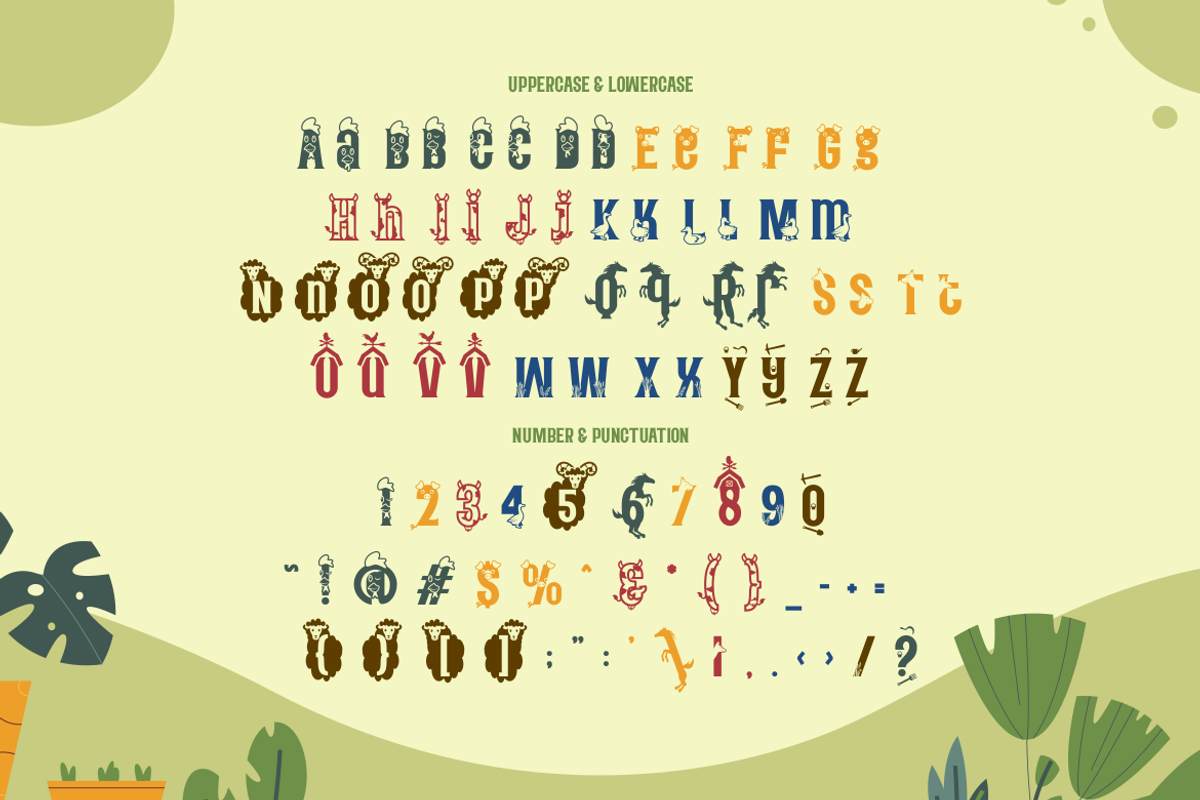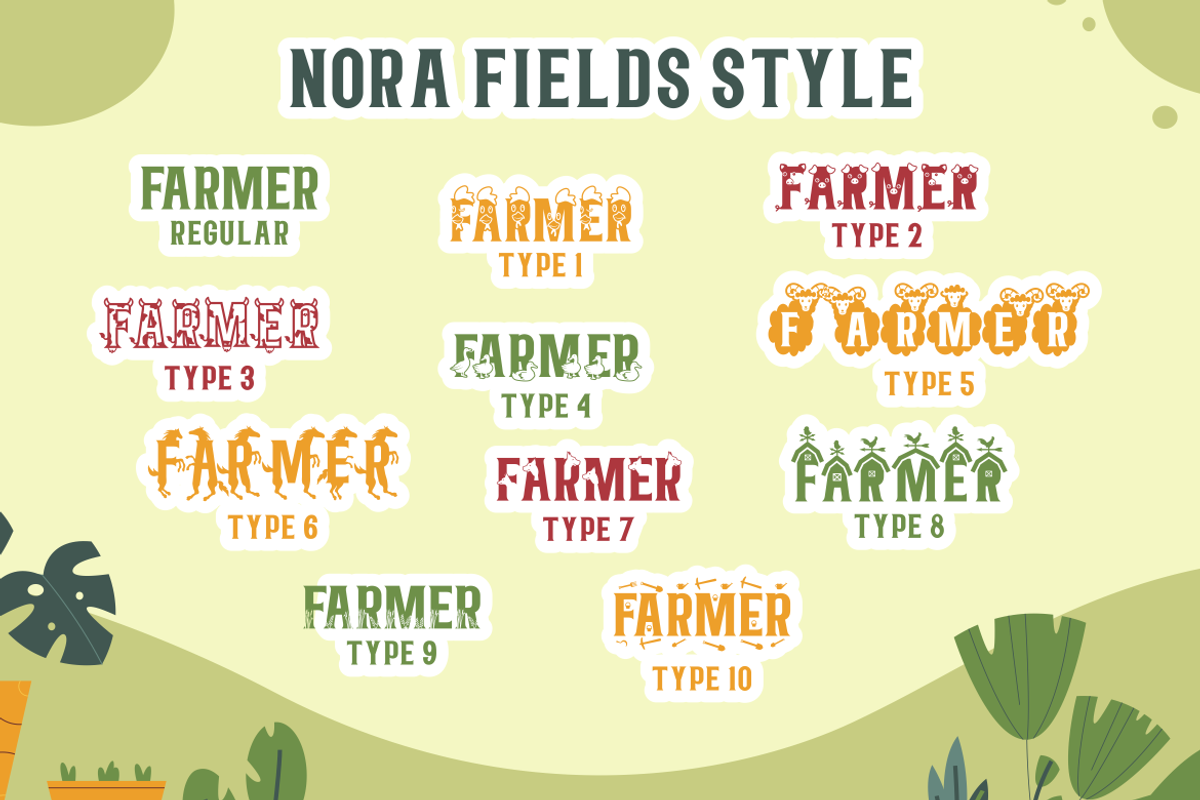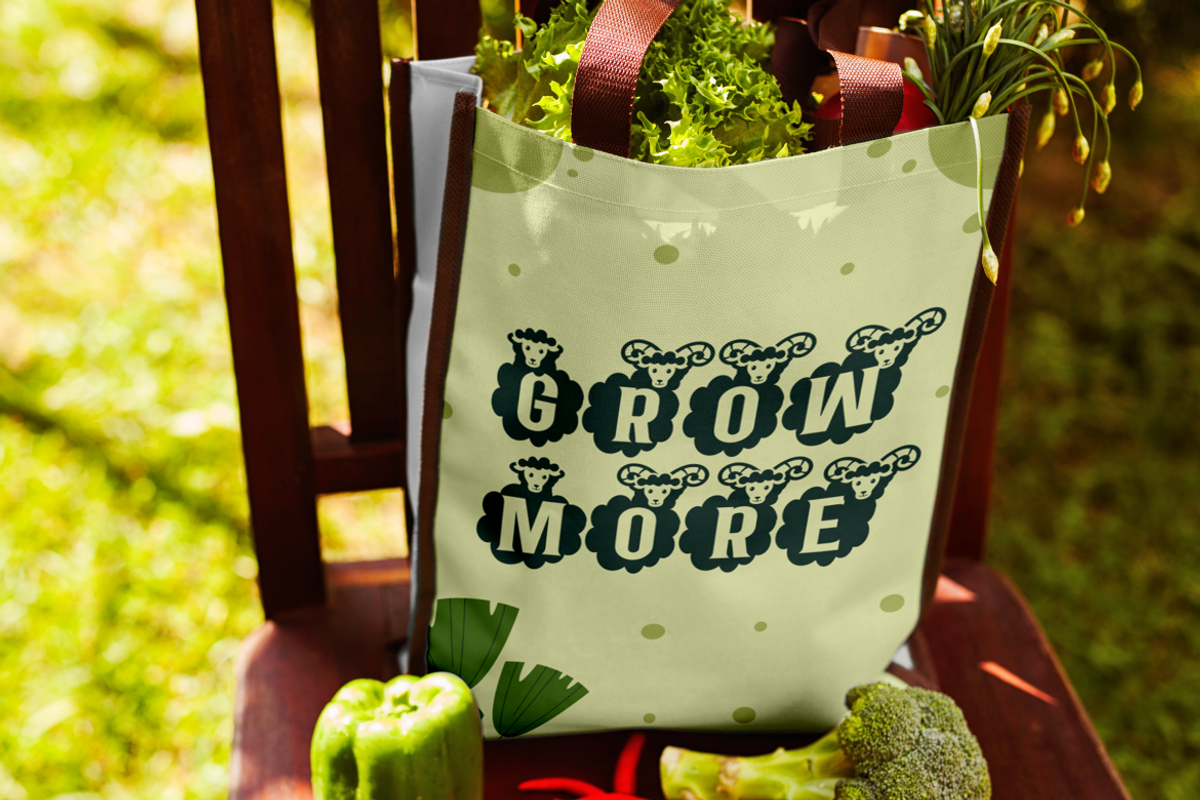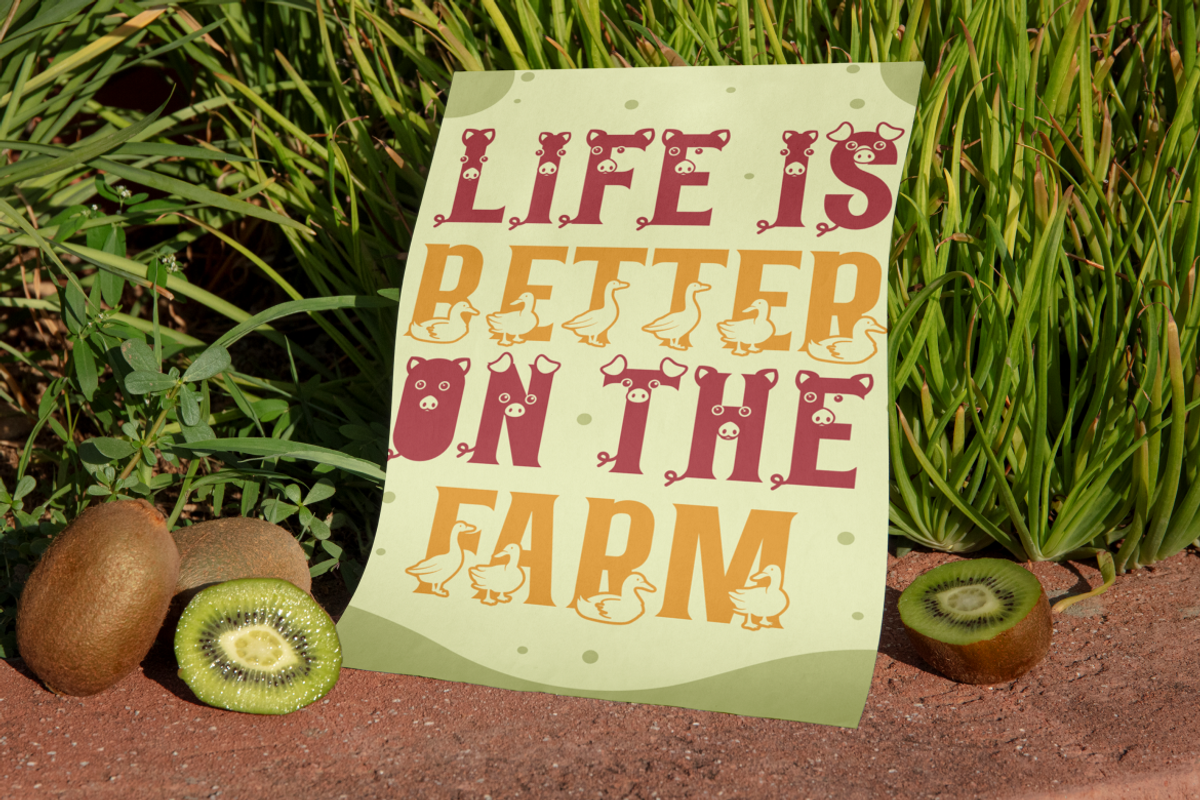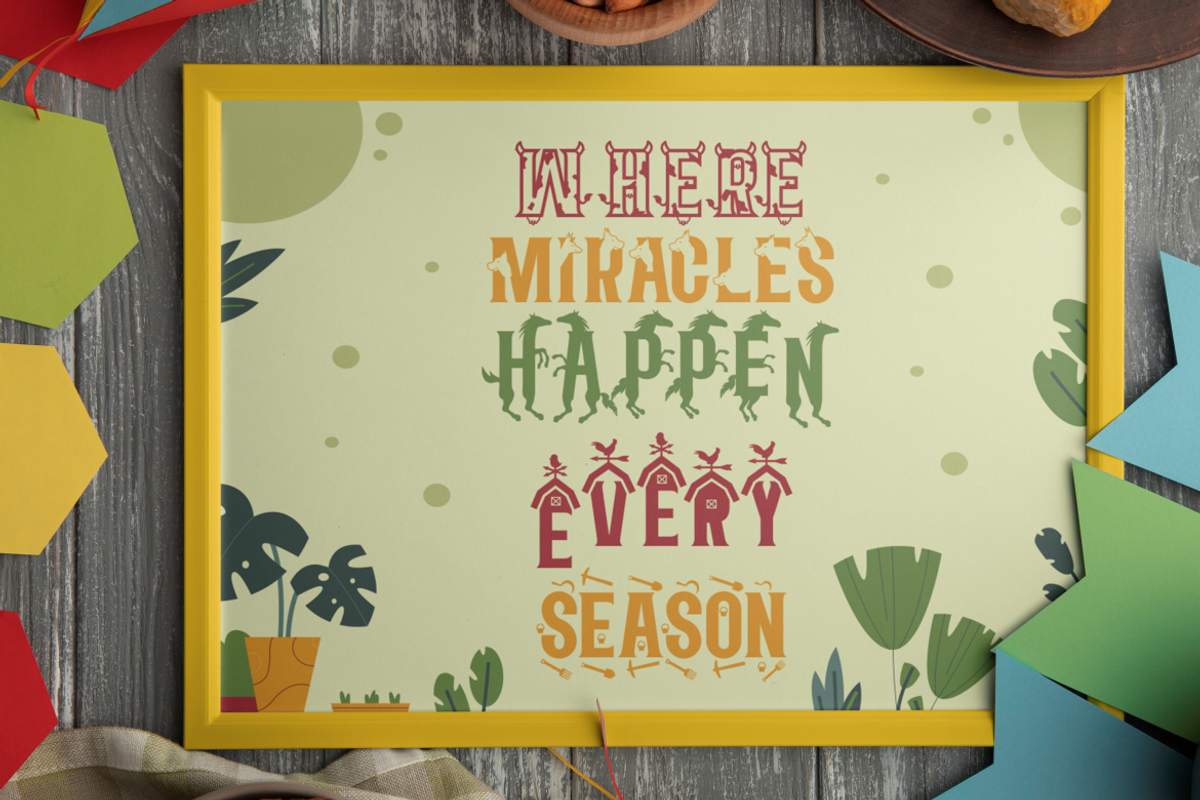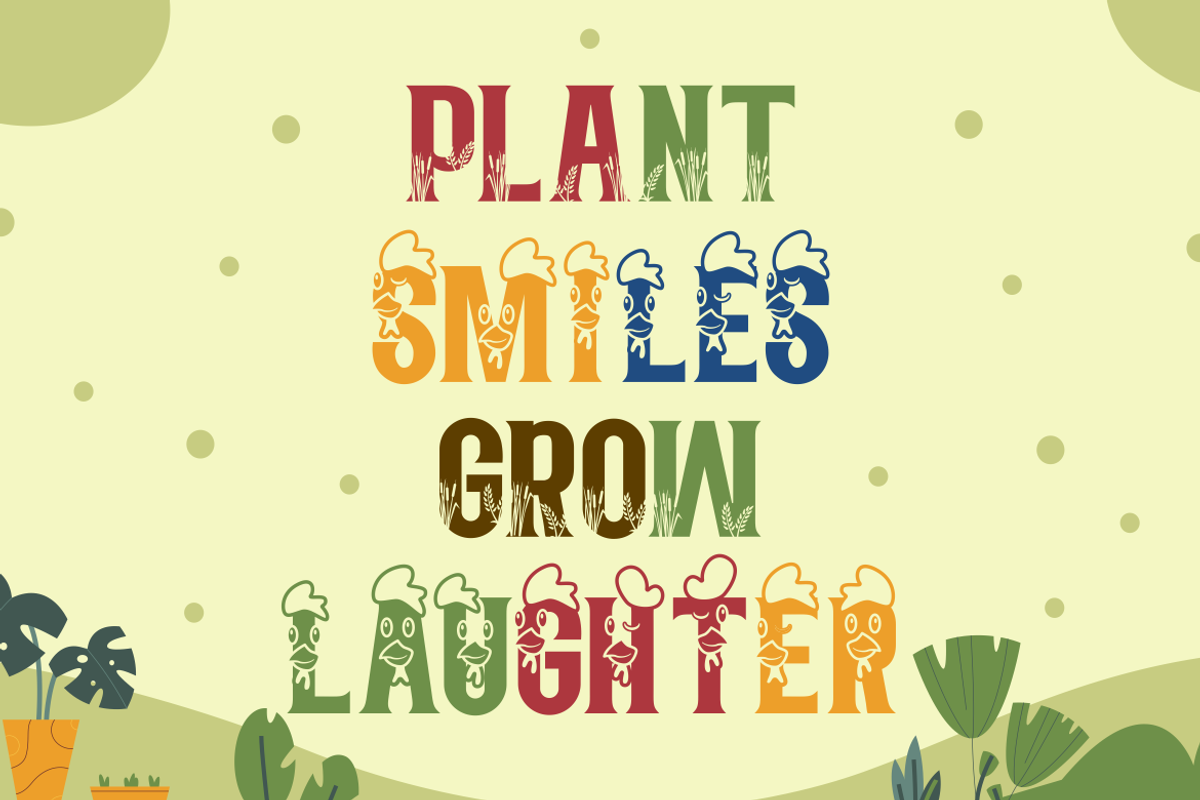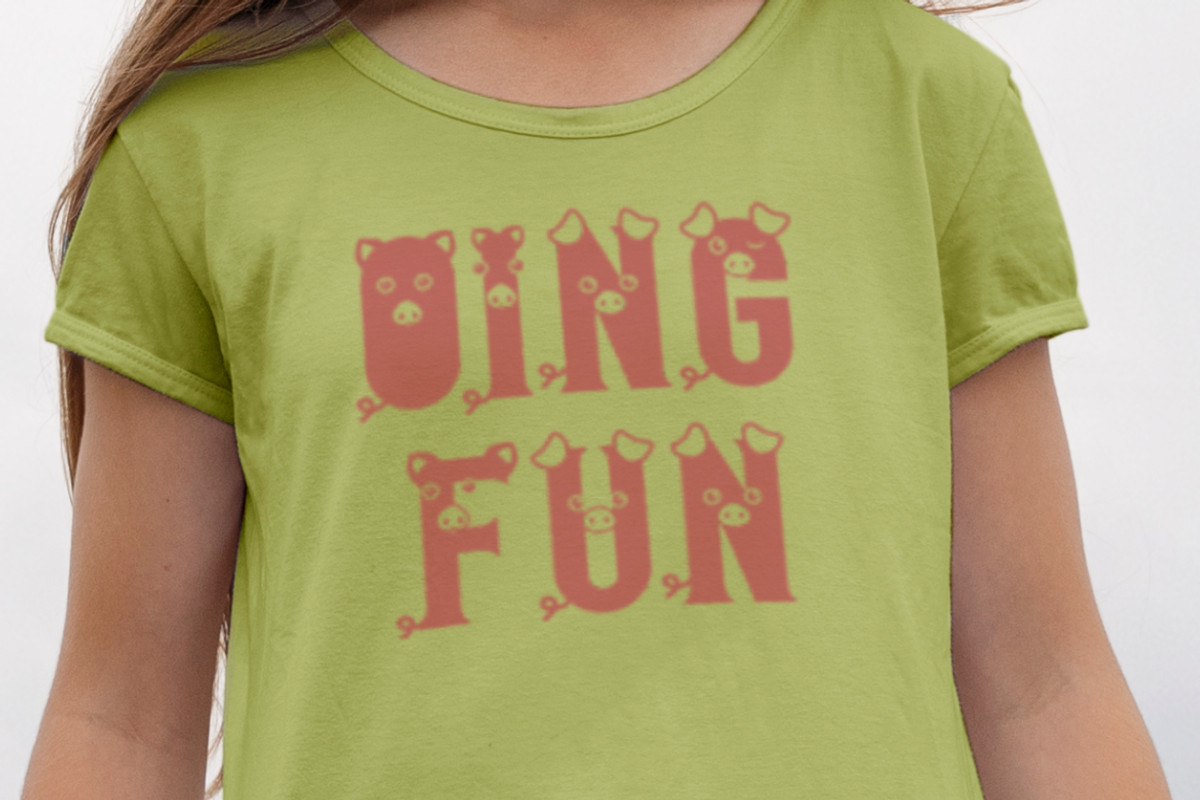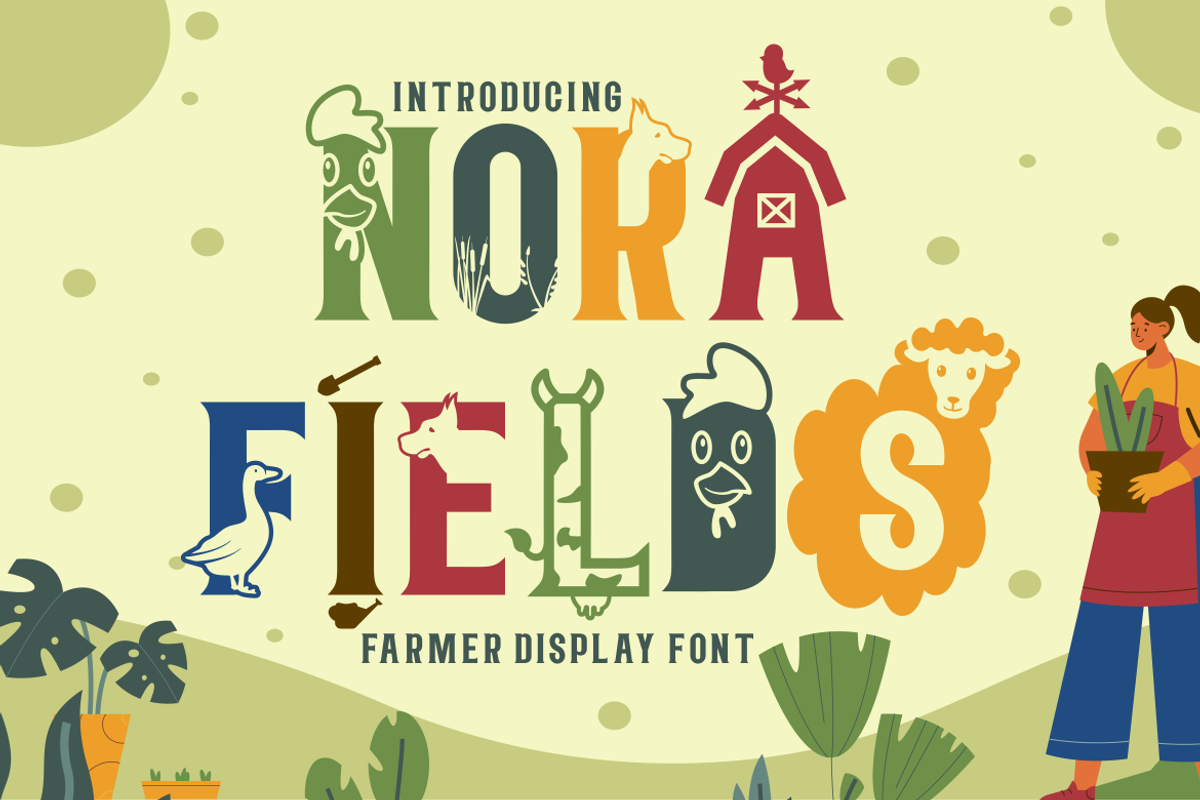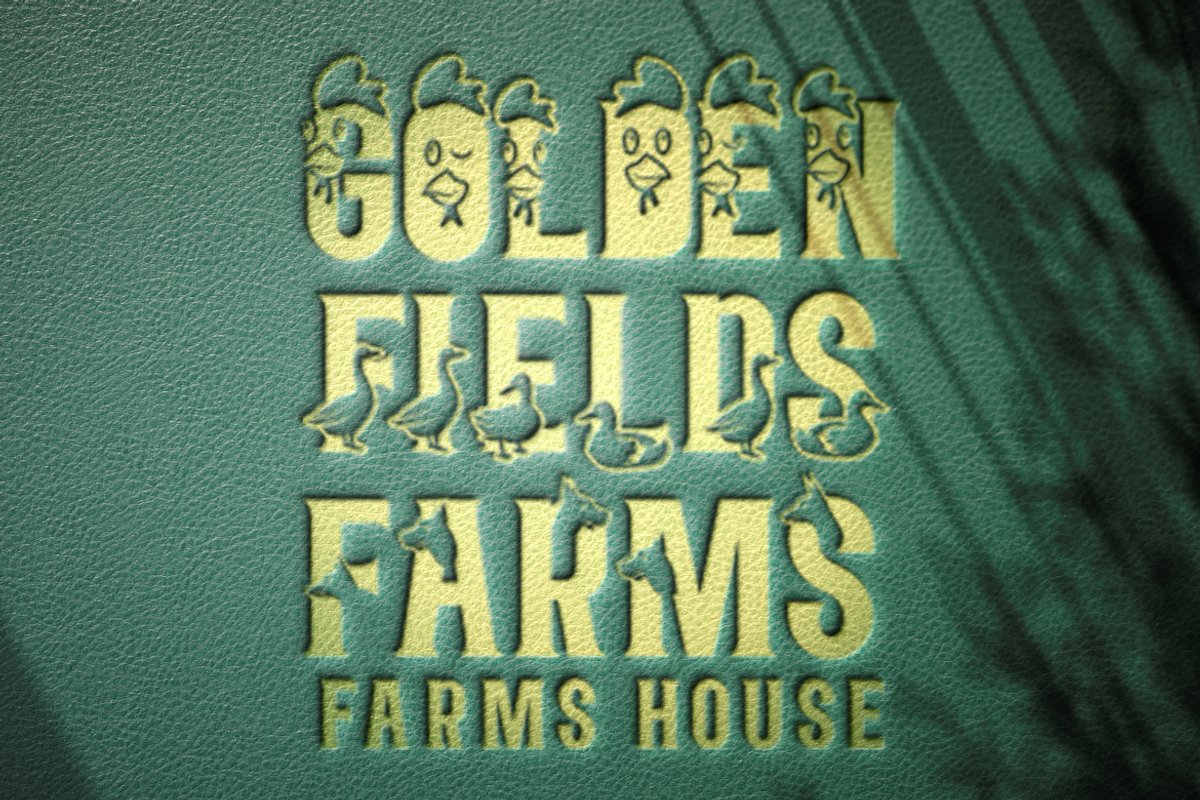
Nora Fields - Farmer Display Font
Step into the rustic charm of Nora Fields, a Farmer Display Font that captures the essence of the countryside. With every stroke, this font brings to life the simplicity and warmth of rural life. Its characters are adorned with delightful motifs such as windmills, sheep, and leaves, evoking the serene atmosphere of a farm. Nora Fields is not just a font; it’s a narrative that celebrates the beauty of nature and the timeless appeal of handcrafted design. Whether it’s a logo that needs to resonate with organic values, branding that requires a touch of homeliness, or crafting projects that call for a personal touch, Nora Fields delivers with authenticity and character.
Ideal for a diverse range of applications, Nora Fields excels in creating an inviting presence on invitations, packaging, posters, business titles, greeting cards, stickers, children’s books, and magazines. Its display quality ensures that your designs stand out with a distinctively handcrafted look that’s both professional and endearing. This font is a tribute to the artisans and the pastoral, a tool for designers who wish to infuse their work with the spirit of the countryside.